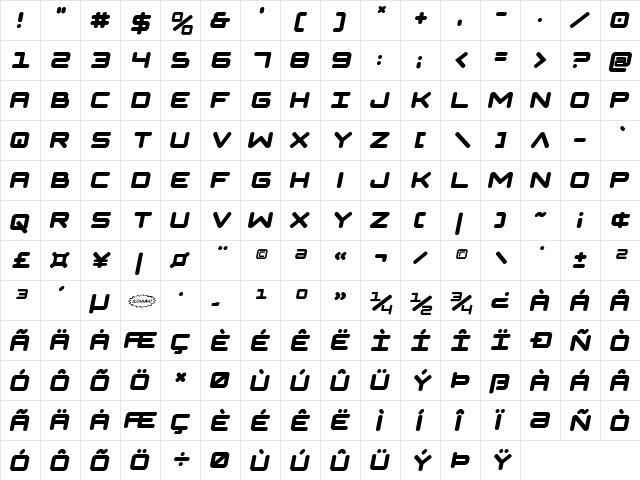
NGC 292 Semi-Italic Regular
Design Context for NGC 292 Semi-Italic Typeface
NGC 292 Semi-Italic offers clean, dependable letterforms without strong stylistic allegiance, making it a practical choice for designers who need flexibility. Its italic angle brings a sense of urgency and motion to the letterforms.
Pro Tip: Try NGC 292 Semi-Italic for annotation and caption copy alongside an upright companion — the contrast in angle creates a dynamic but ordered typographic system.